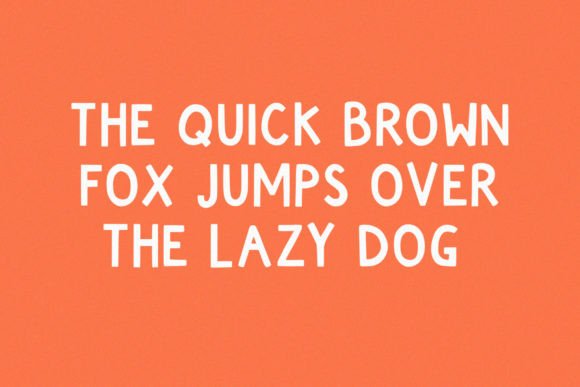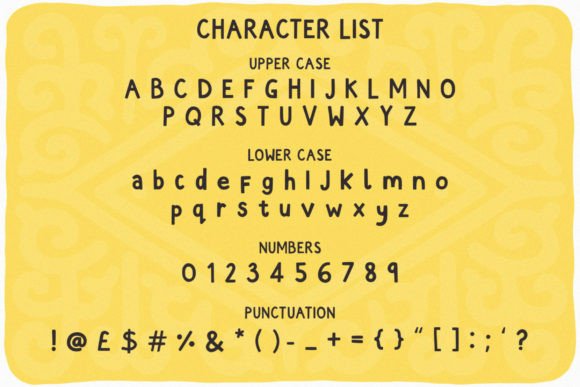
Introduction to Custard Cream Font
Custard Cream is a playful child-like typeface perfect for any fun quirky design work.
This font can be used for anything such as T-Shirt designs, phone cases, greeting cards, invitations, mugs and so much more Get creative.
Custard Cream Font offers exceptional quality and versatility, making it a valuable addition to your design toolkit. Whether you’re creating for personal projects or commercial use, Custard Cream Font delivers professional results.